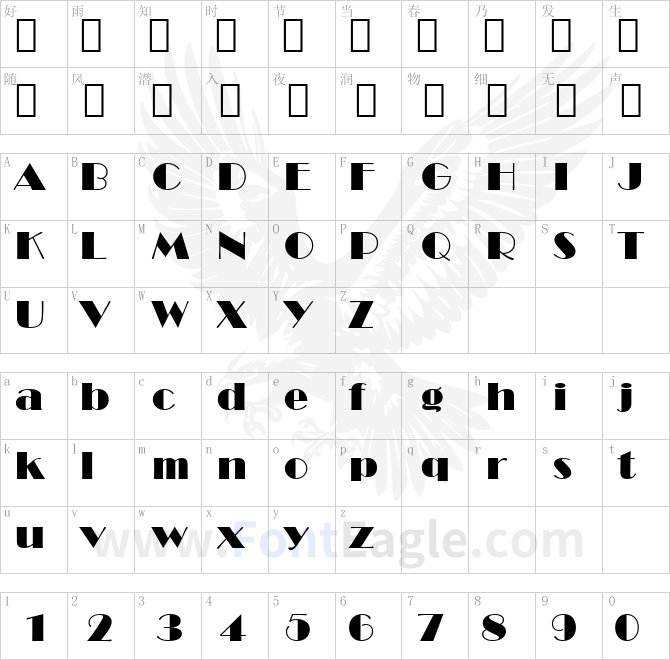
Broadway-BT is a great font, widely used in graphic design, single-page menu design, poster design and other fields, and is deeply loved by designers.Broadway-BT download.